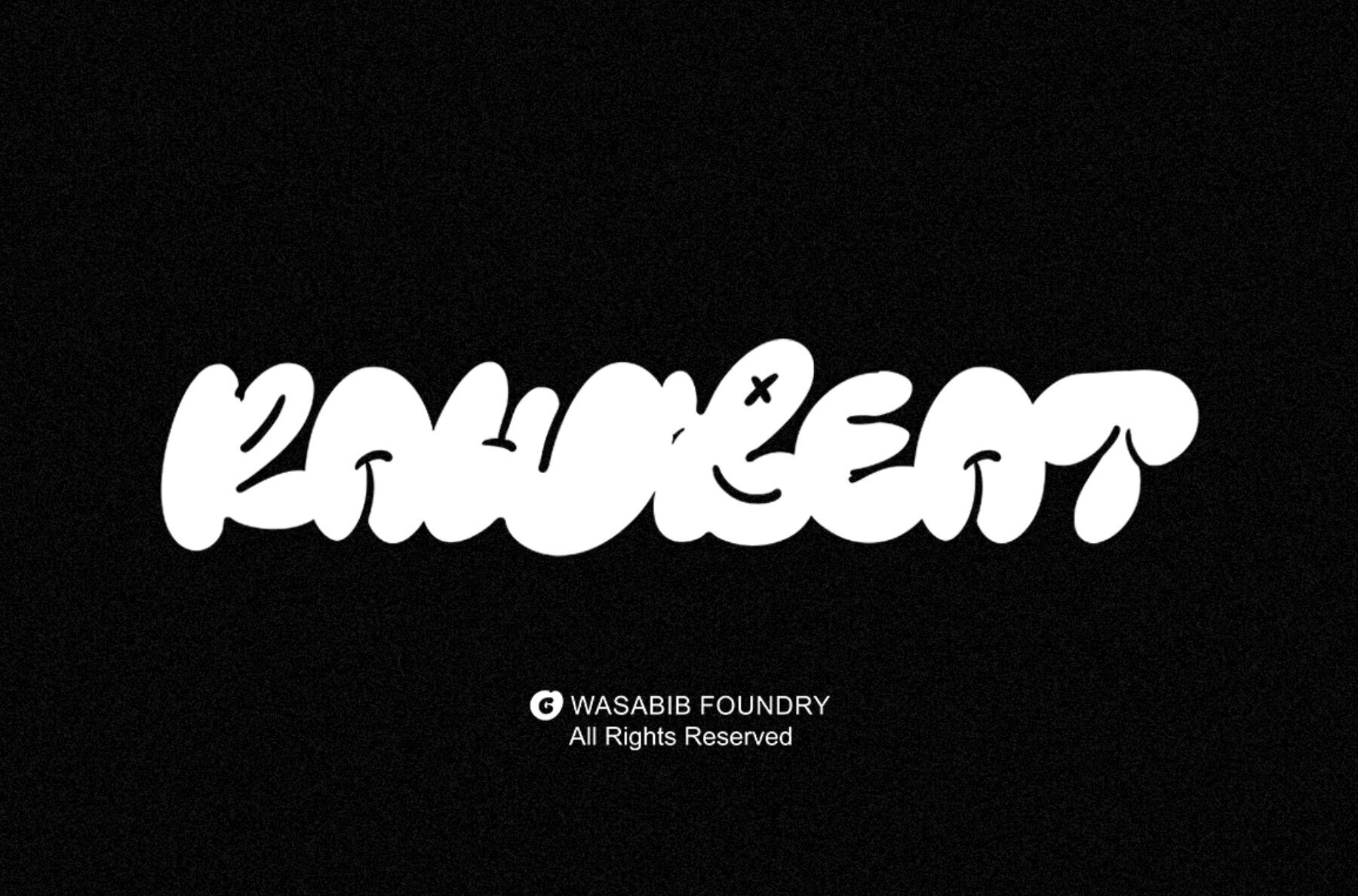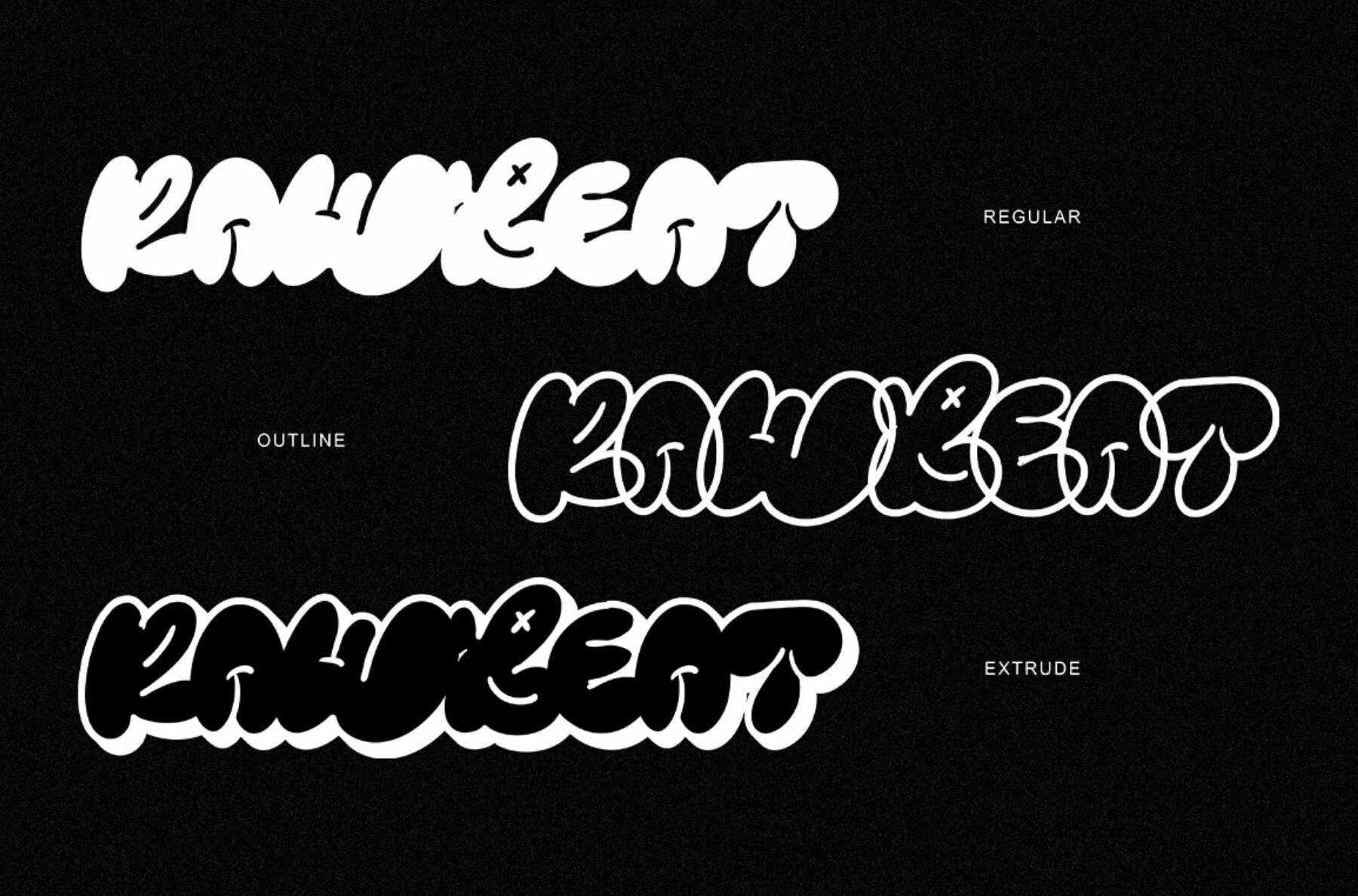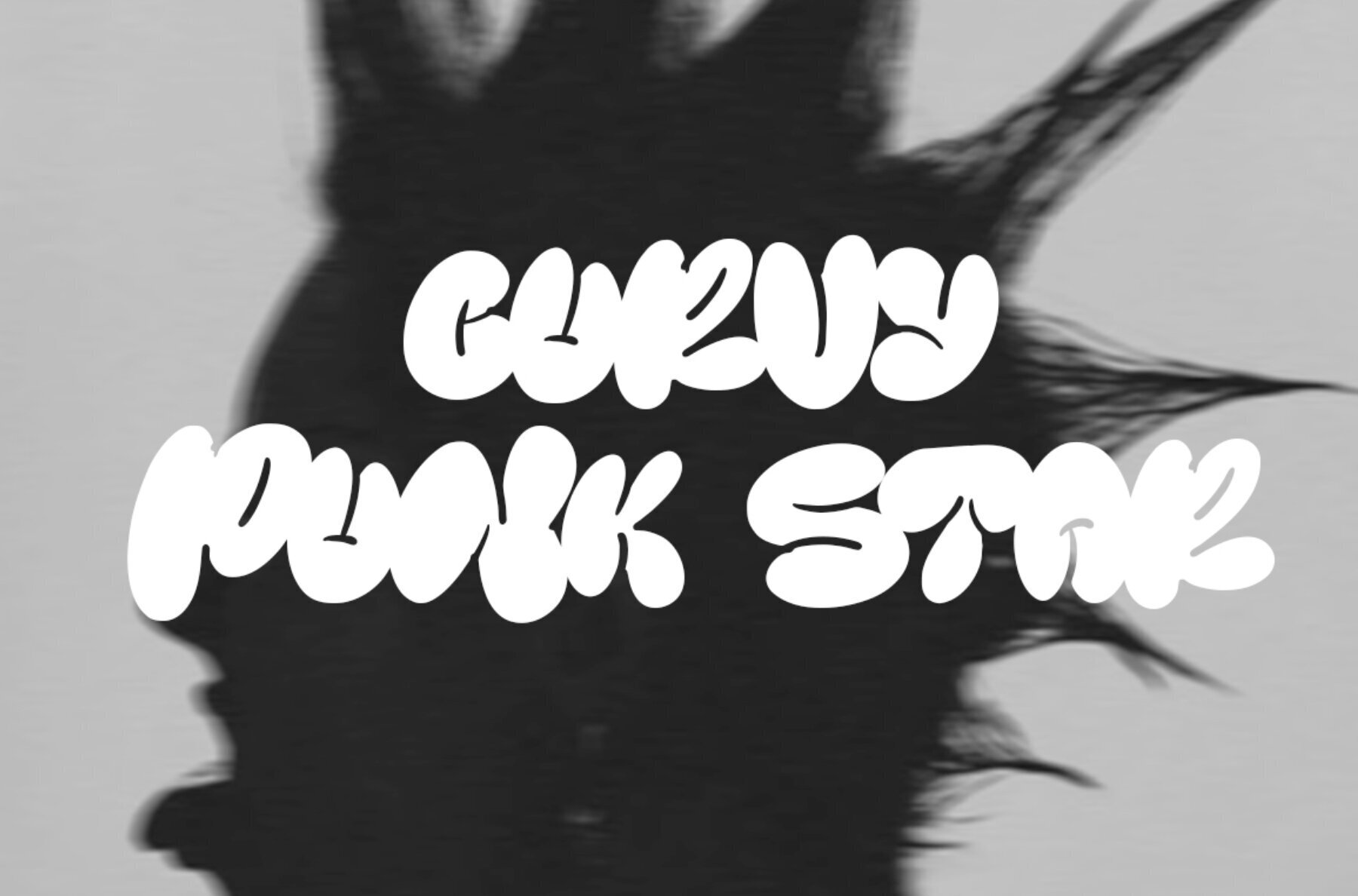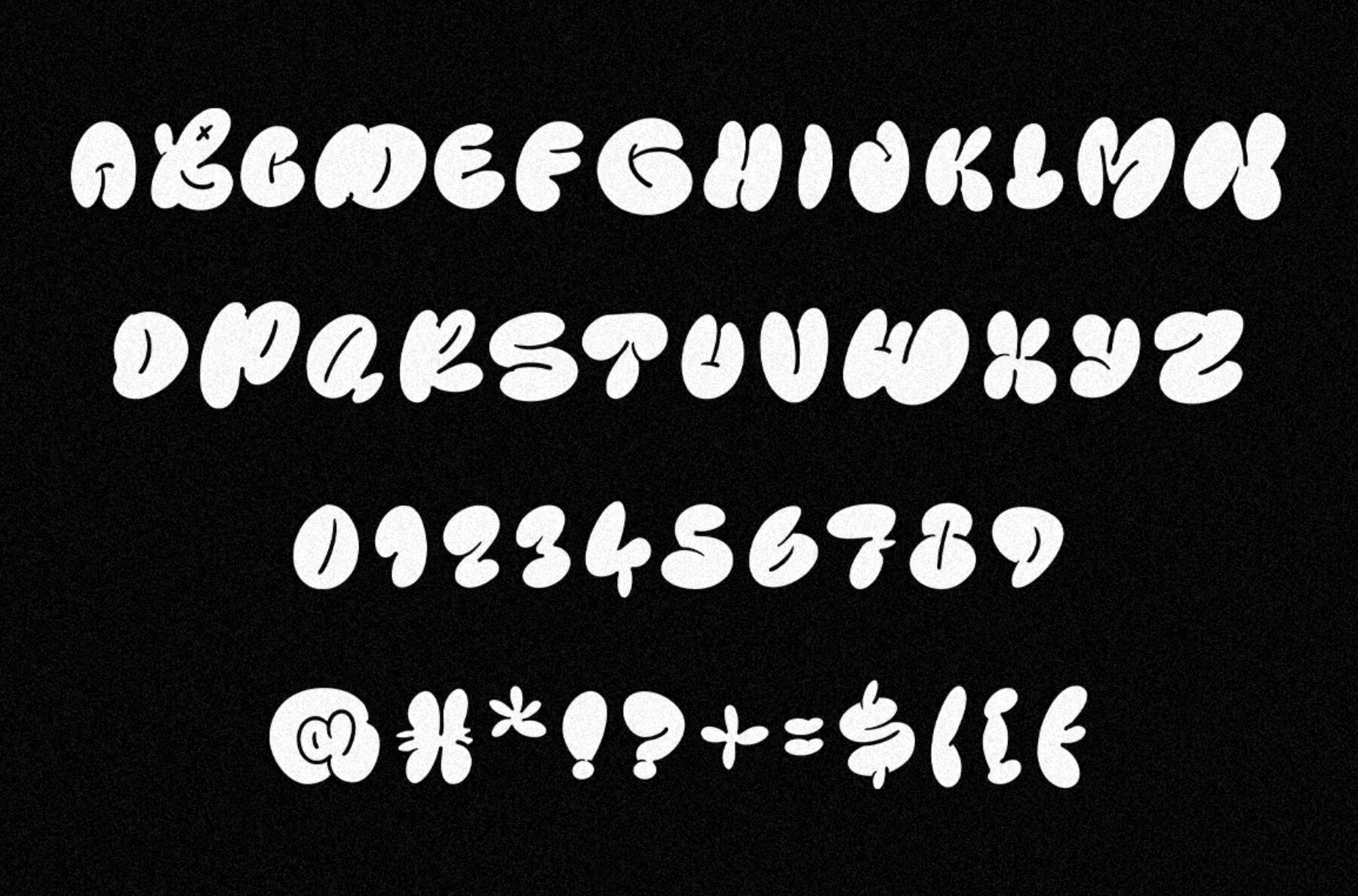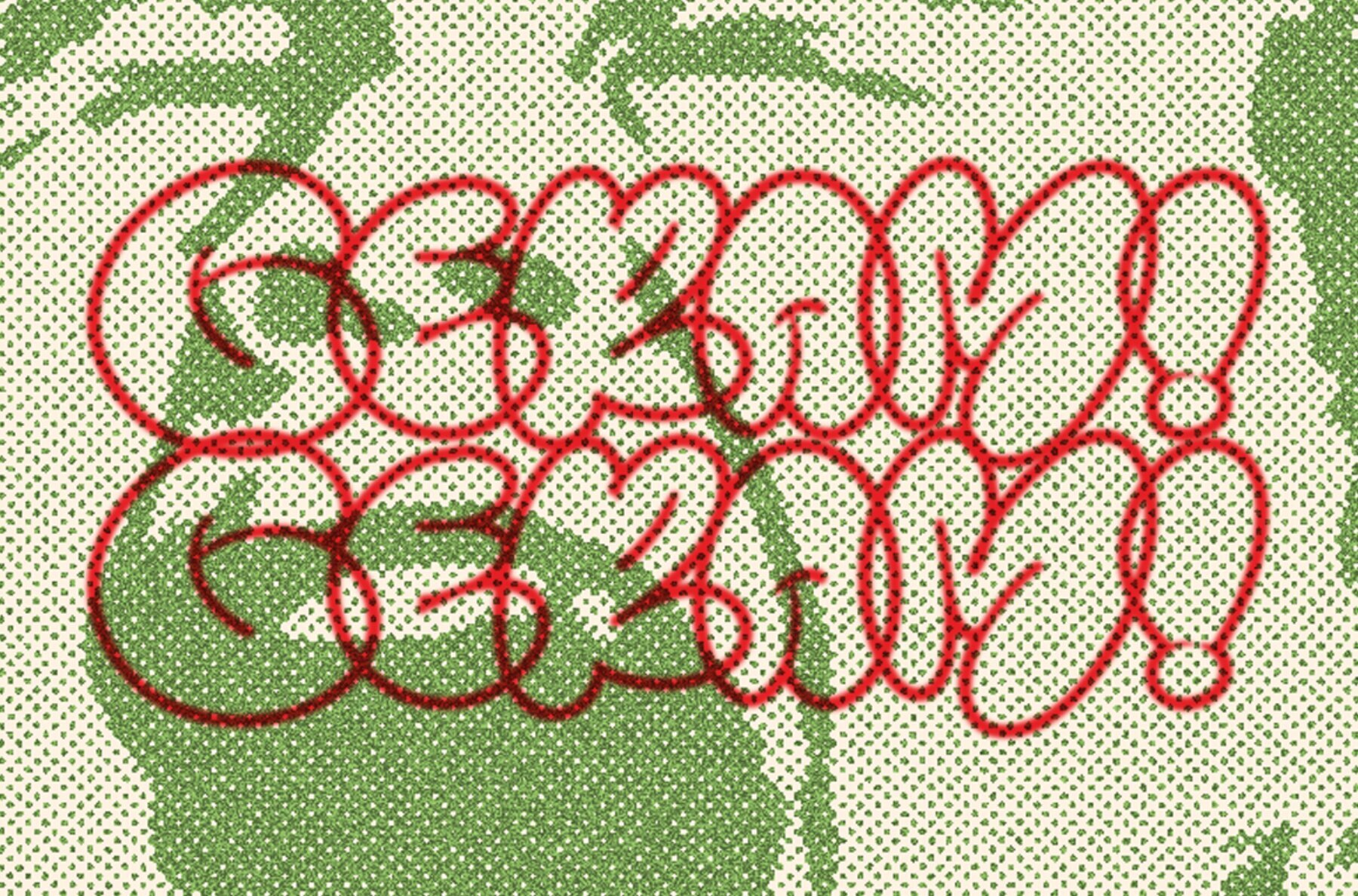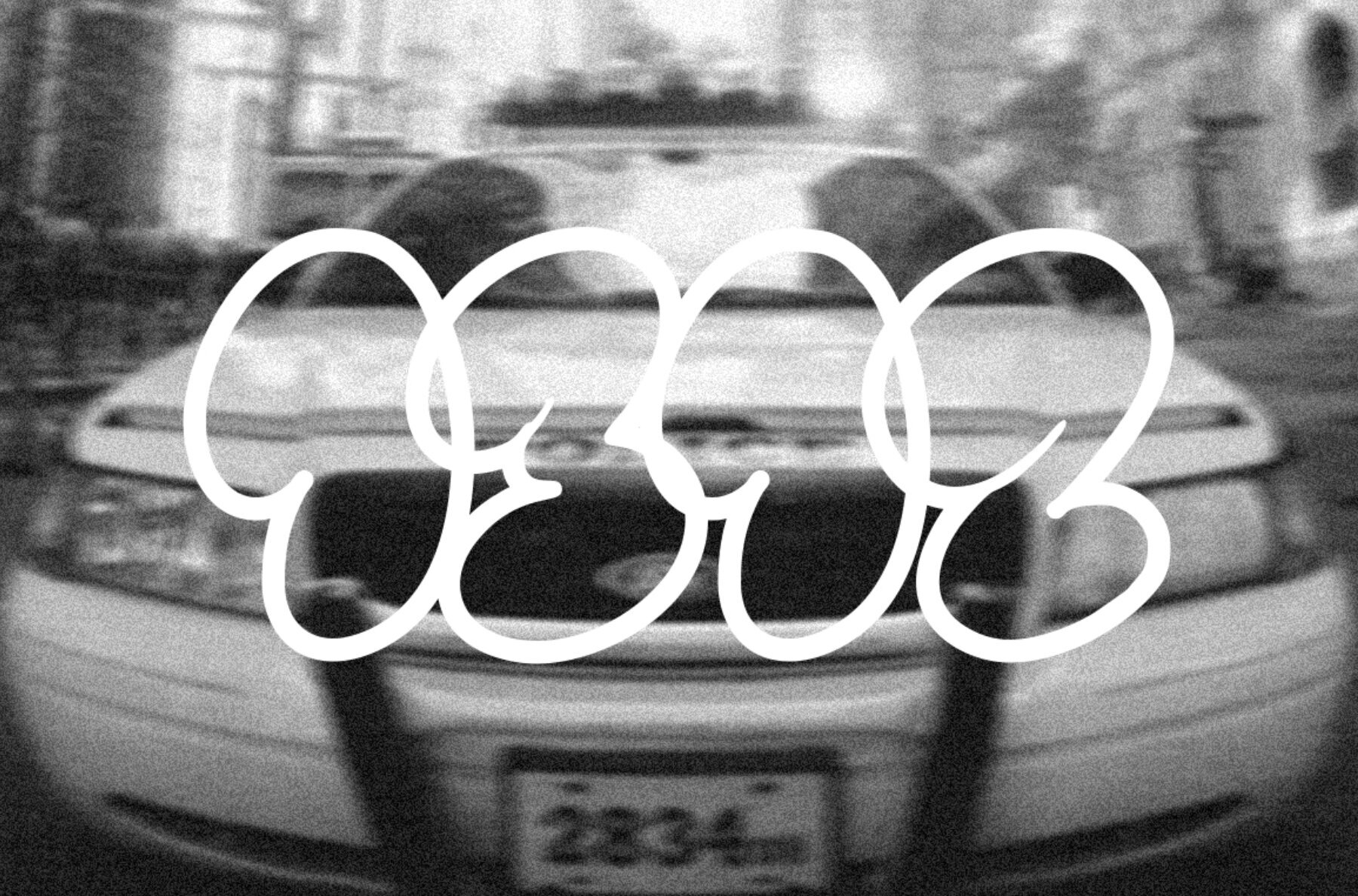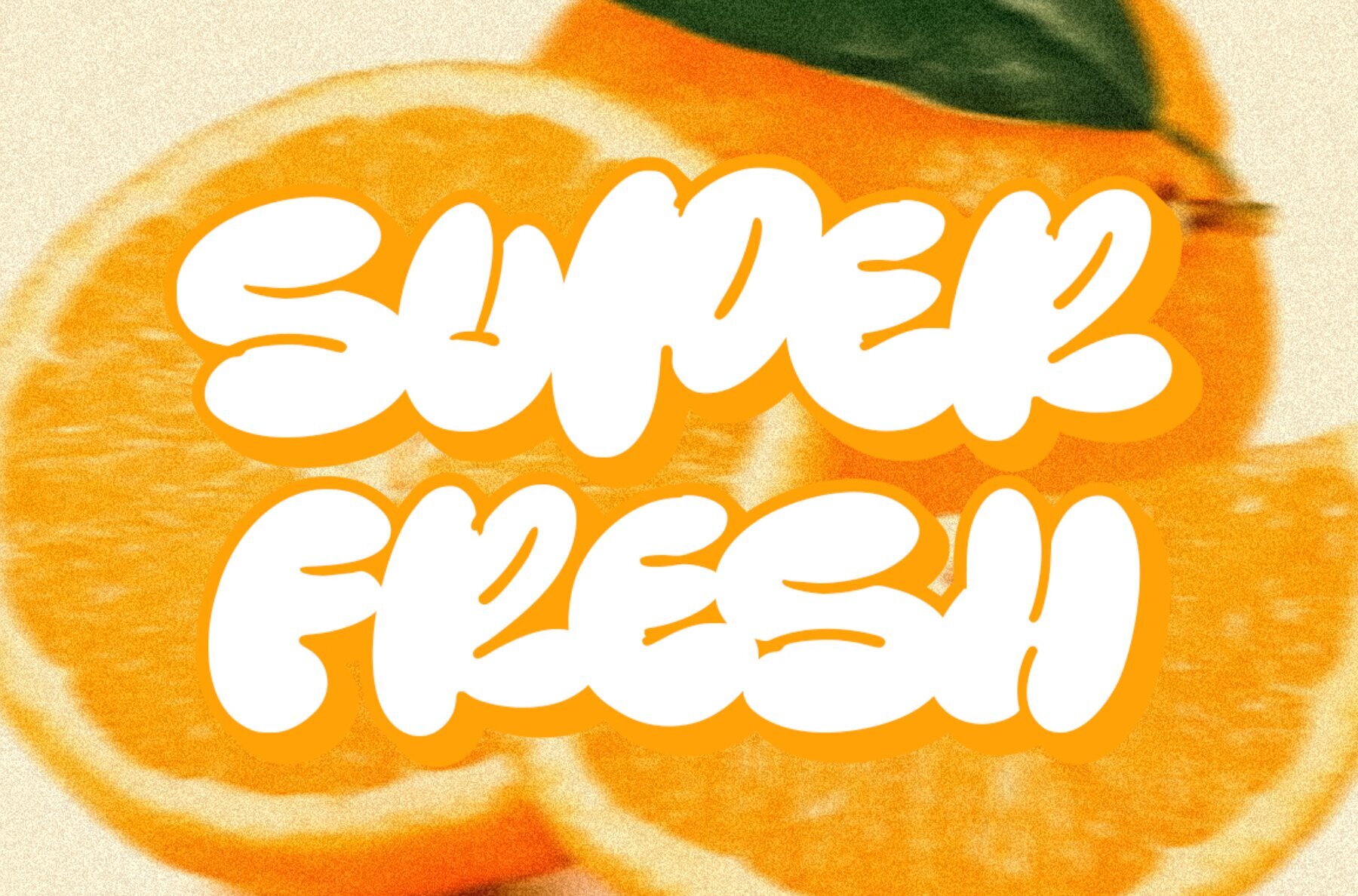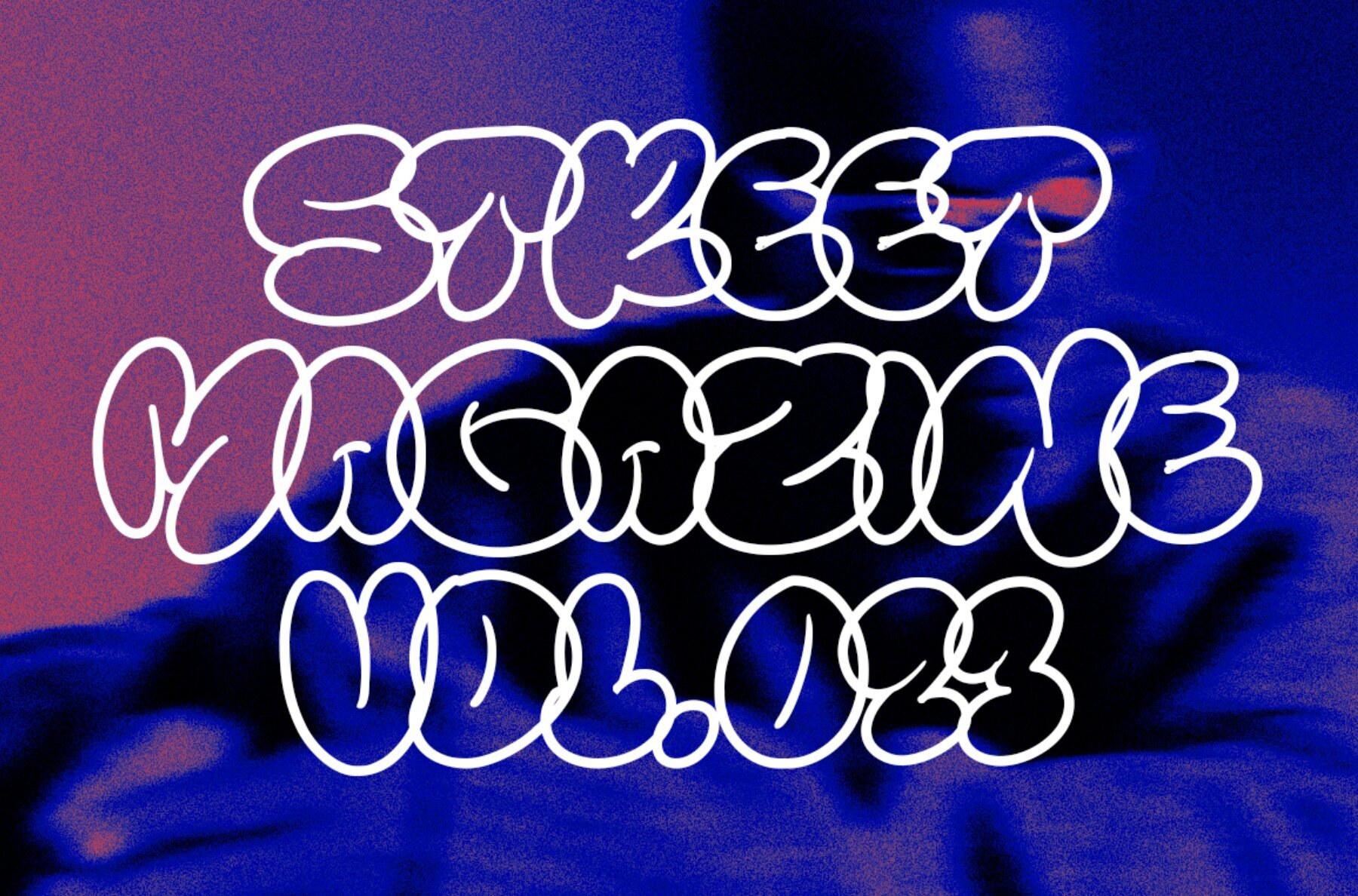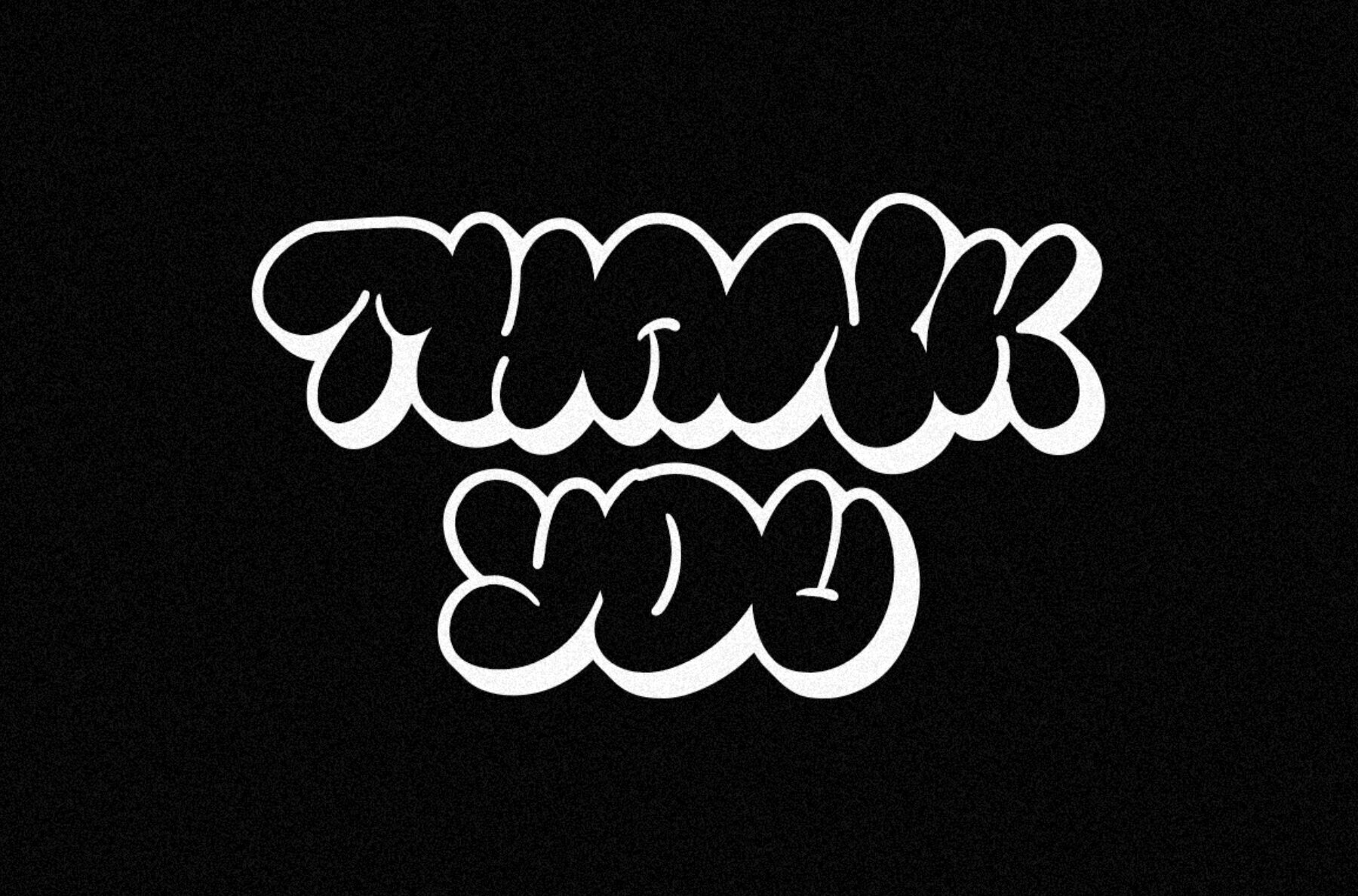
Rawbeat Font
Rawbeat is a dynamic display font inspired by graffiti art, designed to make your projects stand out. It includes three distinct styles: Regular, Outline, and Extrude. This font's unique hand-drawn aesthetic brings a powerful artistic touch to any design, adding a bold and eye-catching element.
Perfect for designers seeking to infuse their work with an urban edge, Rawbeat offers versatility and flair. The font's edgy and impactful style is ideal for branding, posters, and any creative endeavor needing a distinctive look. Add Rawbeat to your toolkit for a vibrant and impressive design statement.